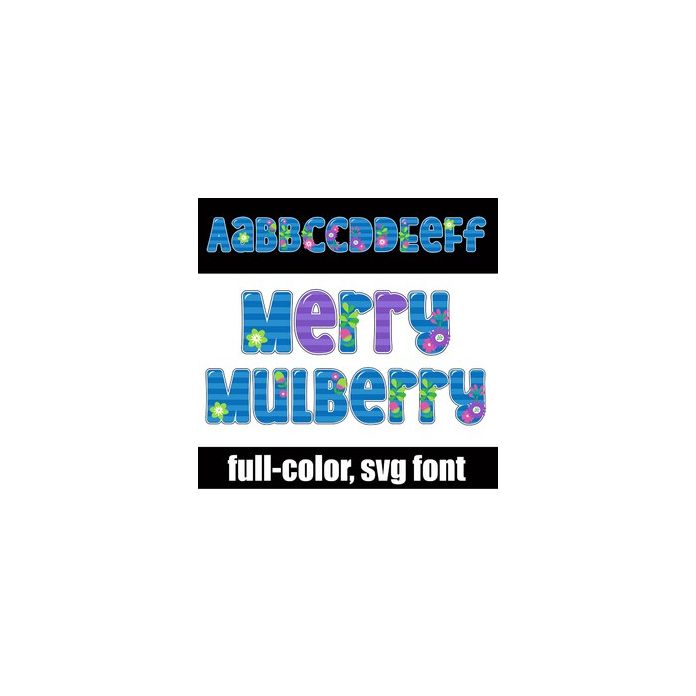
This full-color font features bright and bold colors, stripes and florals. There are two alt cases w/ additional colors you can access through your system or Silhouette's glyph map.